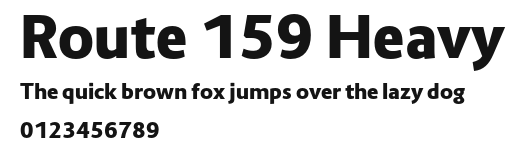
Route 159 Heavy Preview
• Font Name: Route 159 Heavy
• Designer: Sora Sagano
About Route 159 Heavy.otf
Route 159 Heavy.otf is a modern, elegant sans-serif font designed for ultimate readability and visual harmony. Perfect for branding, headlines, web design, and print materials.